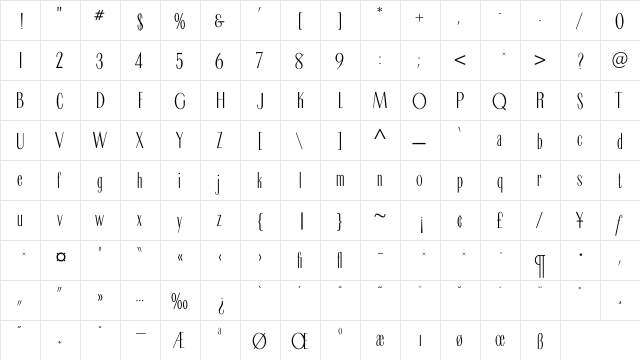
CameoThinline Regular
Design Context for CameoThinline Typeface
CameoThinline brings ornamental detail and strong personality to headlines and identities, where visual impact matters more than quiet functionality. Its slender proportions lend an understated elegance to any composition.
Font Pairing: Pair with a clean neutral sans-serif for body copy to let CameoThinline's character lead without overwhelming the composition.
Pro Tip: Treat CameoThinline as the centrepiece of your typographic hierarchy. One strong heading set in a decorative face can carry an entire layout.